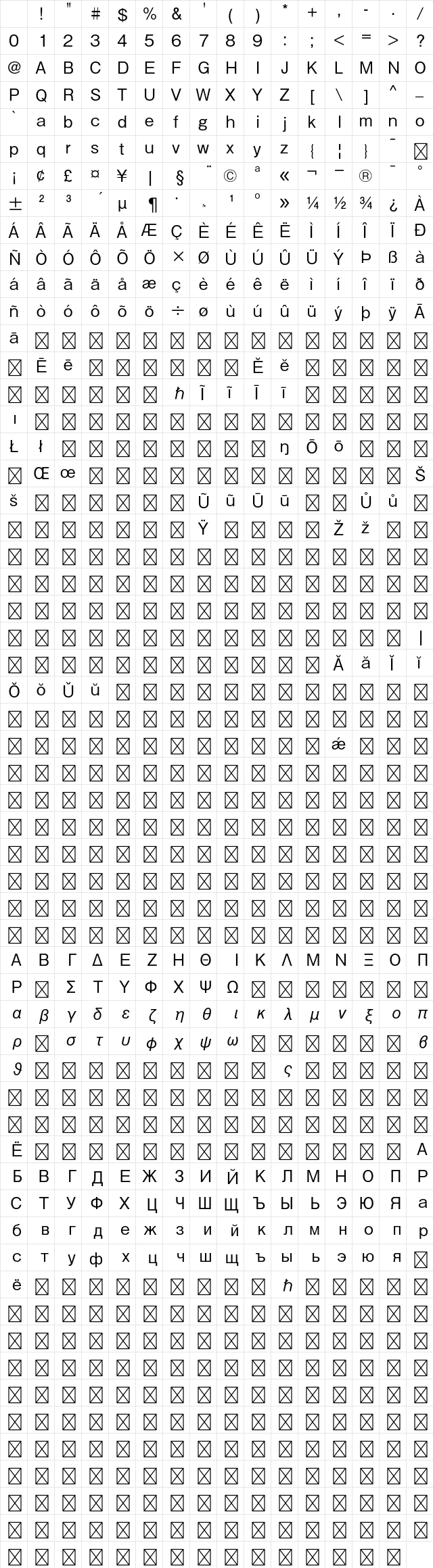
A-OTF Gothic BBB Pro Medium
Design Context for A-OTF Gothic BBB Pro
A-OTF Gothic BBB Pro takes a clean, functional approach - its unadorned letterforms prioritise legibility and work reliably across screen and print environments.
Font Pairing: Works well alongside a characterful serif or display font that can carry the expressive load while A-OTF Gothic BBB Pro handles the functional copy.
Pro Tip: Use A-OTF Gothic BBB Pro for UI labels, navigation, and short-form body copy where clean legibility is the priority.